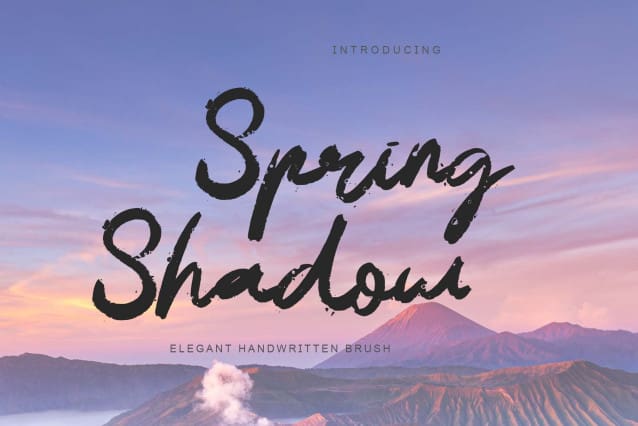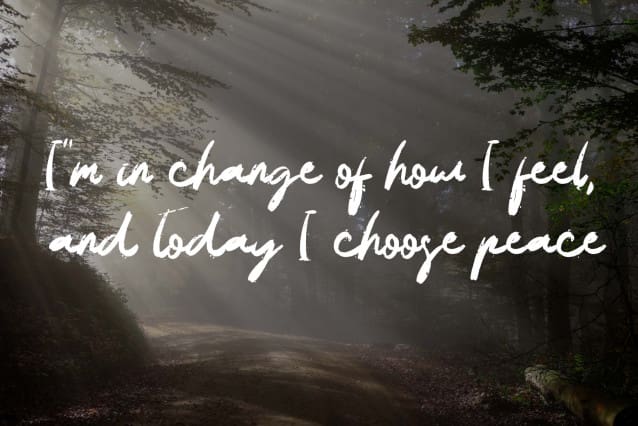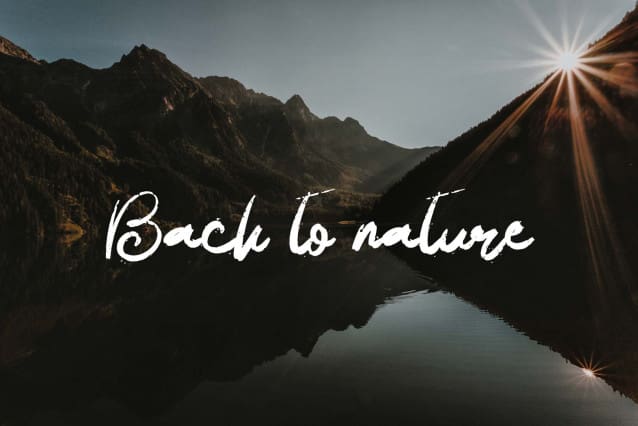
Spring Shadow Font
Spring Shadow Font is an elegant brush-handwritten font. This font is equipped with uppercase, lowercase, numerals, punctuation, and multilingual support. Very suitable for invitations, Easter, spring, summer, Mother’s Day, stickers, posters, banners, branding, logos, business branding, and others.